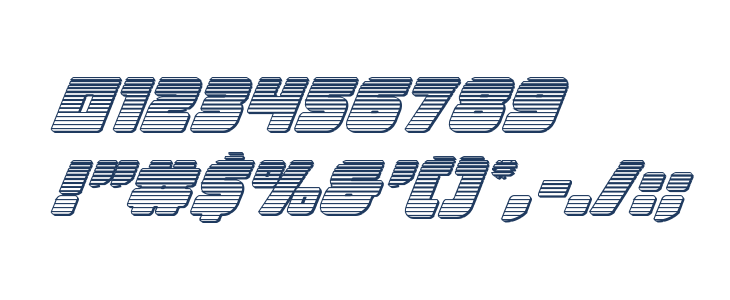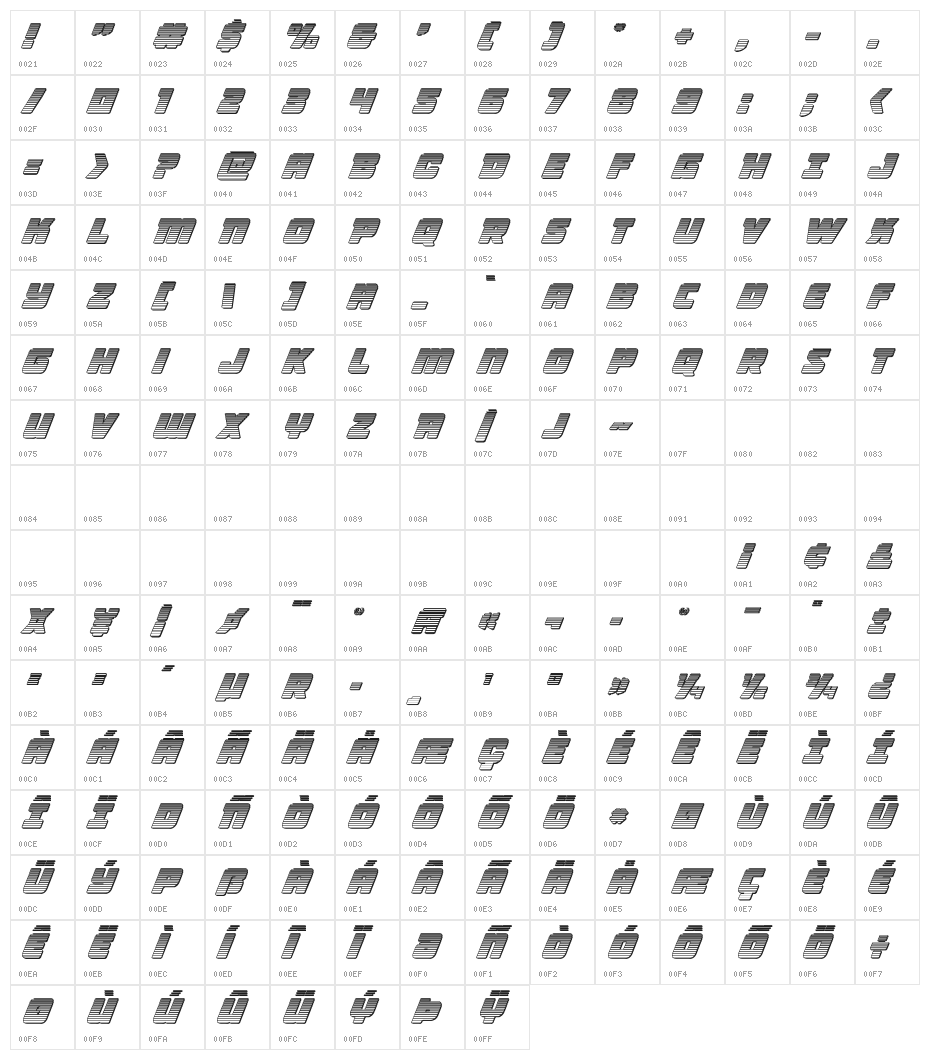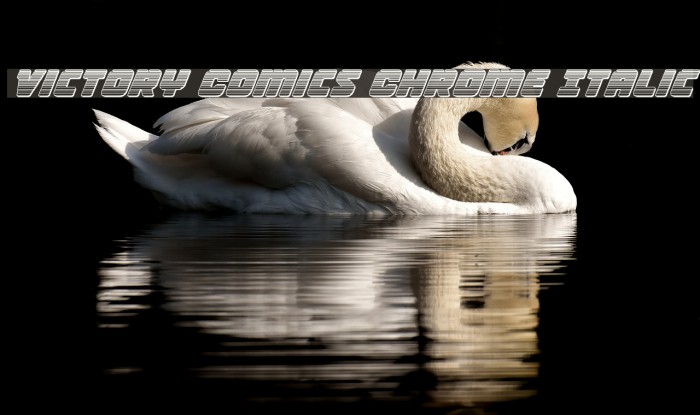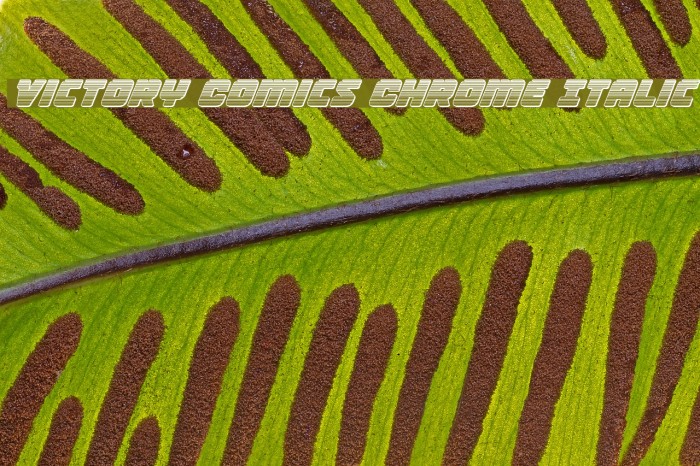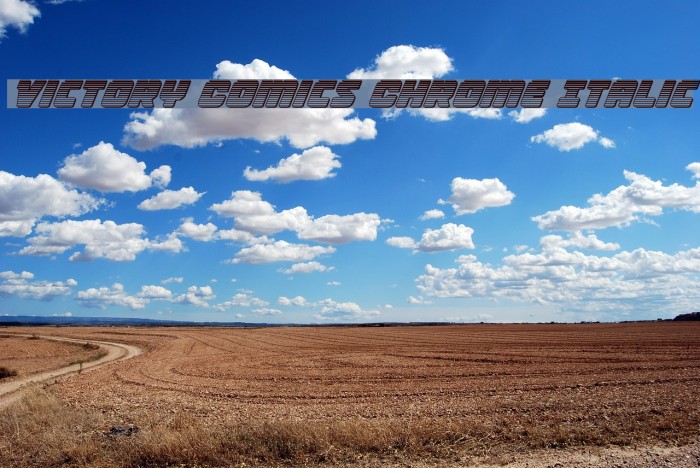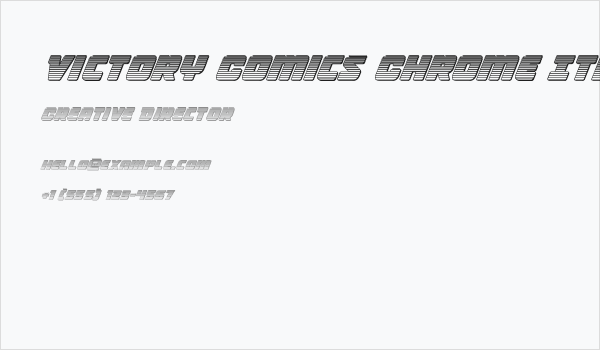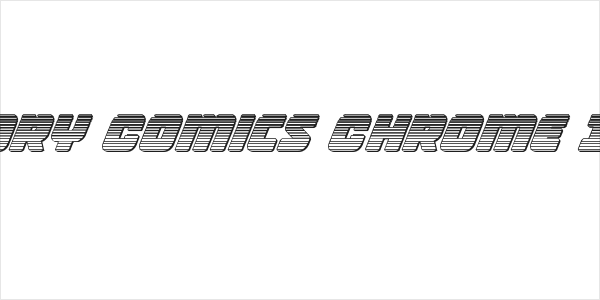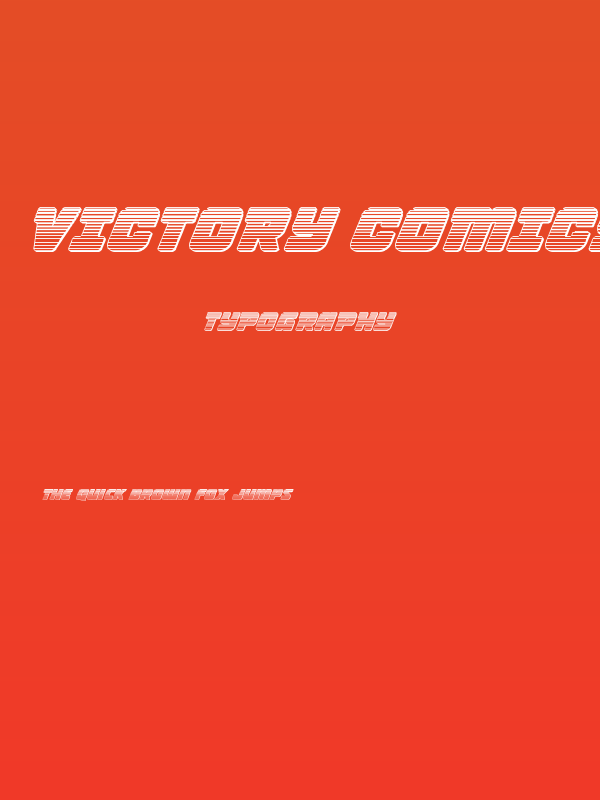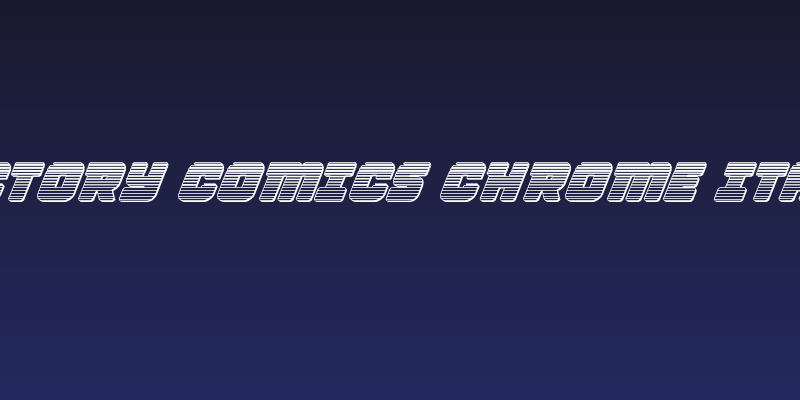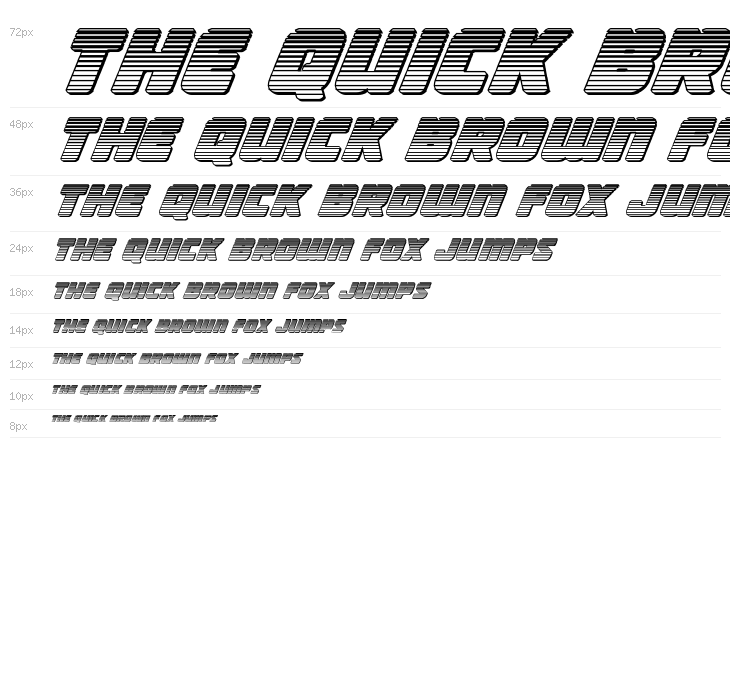
Victory Comics Chrome Italic Font
Victory Comics Chrome Italic Description
This font features a bold, dynamic style with a distinct chrome-like appearance. The letters are constructed with multiple parallel lines, giving a sense of depth and movement. The italic slant adds a sense of speed and modernity, making it ideal for attention-grabbing designs. The uppercase and lowercase letters maintain consistent styling, while the numbers and special characters complement the overall aesthetic. This font is perfect for projects that require a futuristic or high-tech look, such as comic book titles, video game graphics, or sci-fi themed posters.
| Proposed Projects | Comic book titles, video game graphics, sci-fi themed posters, tech branding. |